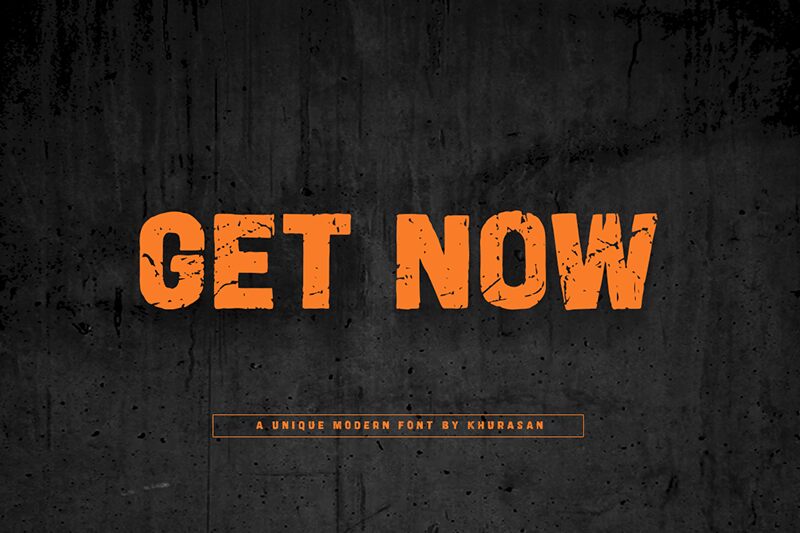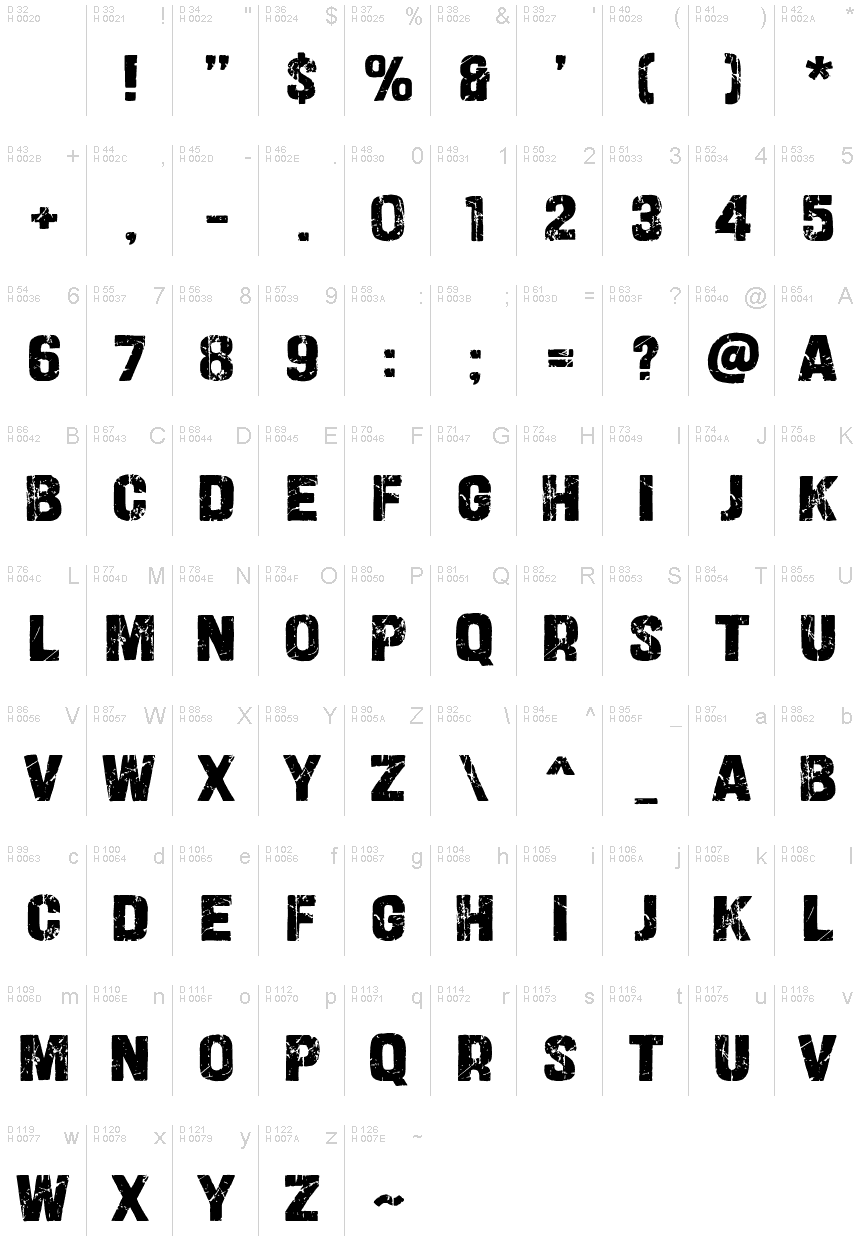
Get Now
Get Now, a bold and edgy display font designed by Khurasan, is perfect for projects that demand attention and stand out from the crowd.
Its eroded style adds a touch of ruggedness to any design, making it suitable for grunge-inspired posters or album covers. With its bold weight, Get Now commands authority and dominance, making it an ideal choice for branding materials or impactful headlines. Whether you're looking to create a vintage-inspired logo or add a touch of rebellion to your designs, Get Now is the font that will make your project unforgettable.